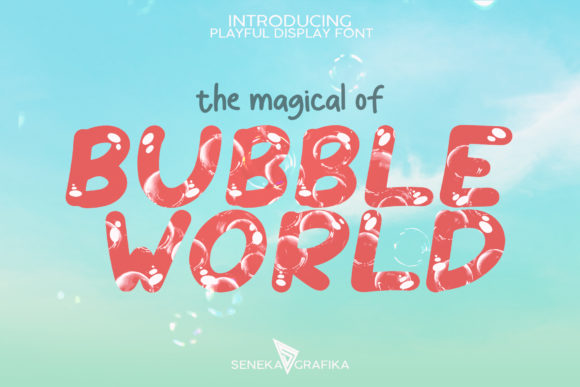
The Quest for the Perfect Font: How Bubble World Stole the Show
I’ll never forget the time I was working on a project for a children’s party invitation. I had the design all planned out, but I just couldn’t find the right font to match the playful vibe I was going for. That was until I stumbled upon Bubble World Font. It was love at first sight! ✨ The cute and modern look of this display font instantly elevated my design, and I knew I had found the perfect match.
An Honest Review of Bubble World Font
- ✨ Cute and modern design: Bubble World Font has a unique and adorable look that is sure to make your designs stand out.
- ✅ Adaptable: This font is versatile and can be used for a wide range of creations, from party invitations to social media graphics.
- 🎉 Fun and playful: The font’s bubbly personality is perfect for designs that require a touch of whimsy.
While Bubble World Font is an amazing addition to any design, there are a few things to keep in mind: 🤔
- ⚠️ Legibility at small sizes: As with many display fonts, Bubble World can be a bit tricky to read at smaller sizes. Make sure to use it at a large enough size to ensure legibility.
- ⚠️ Limited use cases: While the font is adaptable, it’s best suited for display purposes. It may not be the best choice for body text or long-form content.
The Story Behind Bubble World Font
Bubble World Font was designed with the intention of creating a fun and playful display font that could be used for a wide range of creative projects. The designer wanted to create a font that would bring a touch of whimsy and personality to designs, and Bubble World Font certainly delivers. 🌎
Q: What type of designs is Bubble World Font best suited for?
A: Bubble World Font is best suited for display purposes, such as party invitations, social media graphics, and other creative projects that require a touch of personality.
Q: Is Bubble World Font easy to read?
A: Bubble World Font is a display font, and as such, it can be a bit tricky to read at smaller sizes. Make sure to use it at a large enough size to ensure legibility.